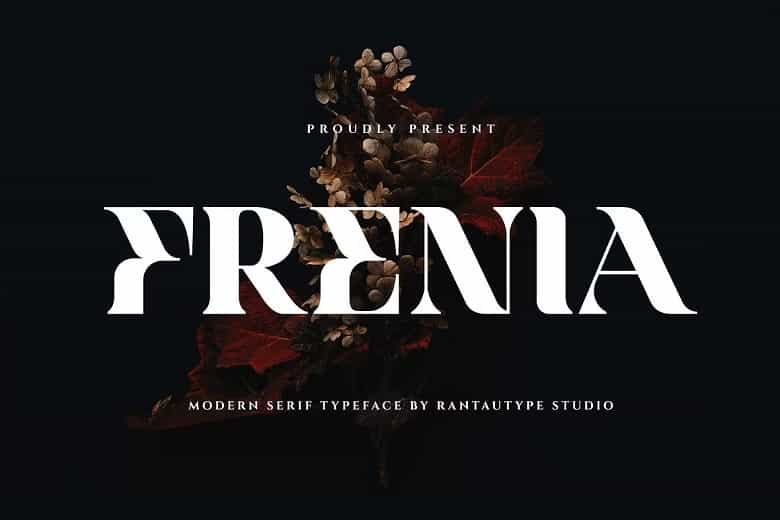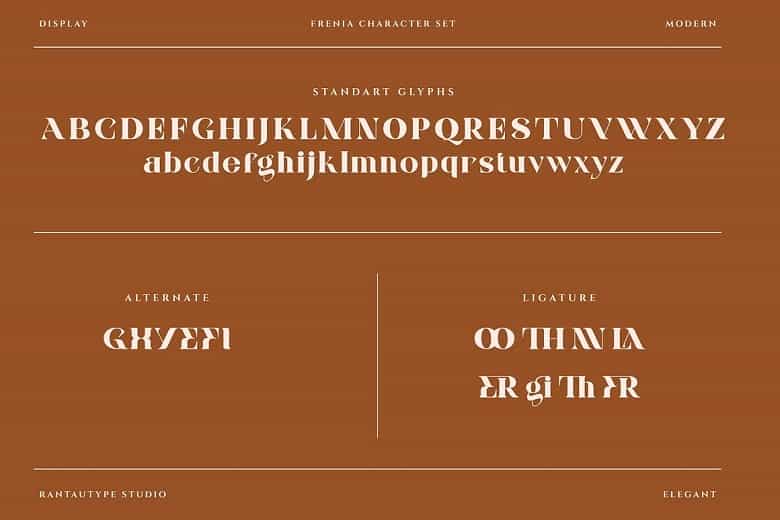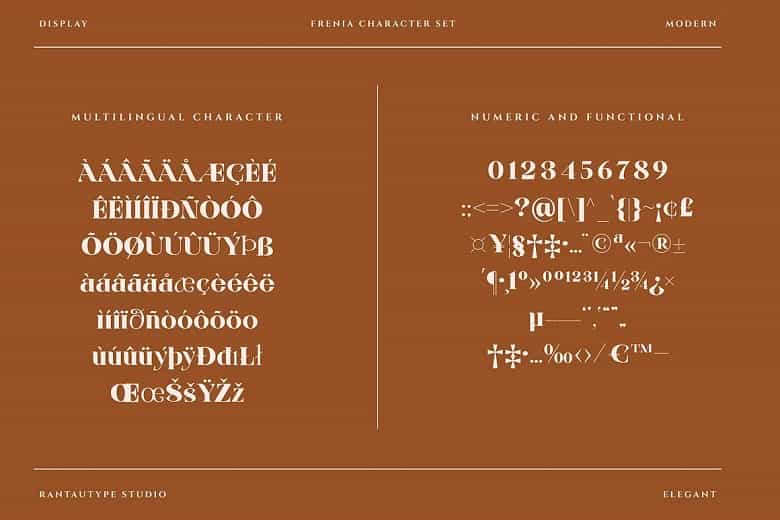
Frenia is display serif font with contemporary attitude which is emphasized by its bold design. Frenis follow the famous style and brand which show the elegance and luxury. Frenia is a great font for any creative project, fashionable lifestyle design, including logos, stationery, branding, invitation, corporate brand, product, package, business project, and other projects with elegant style.